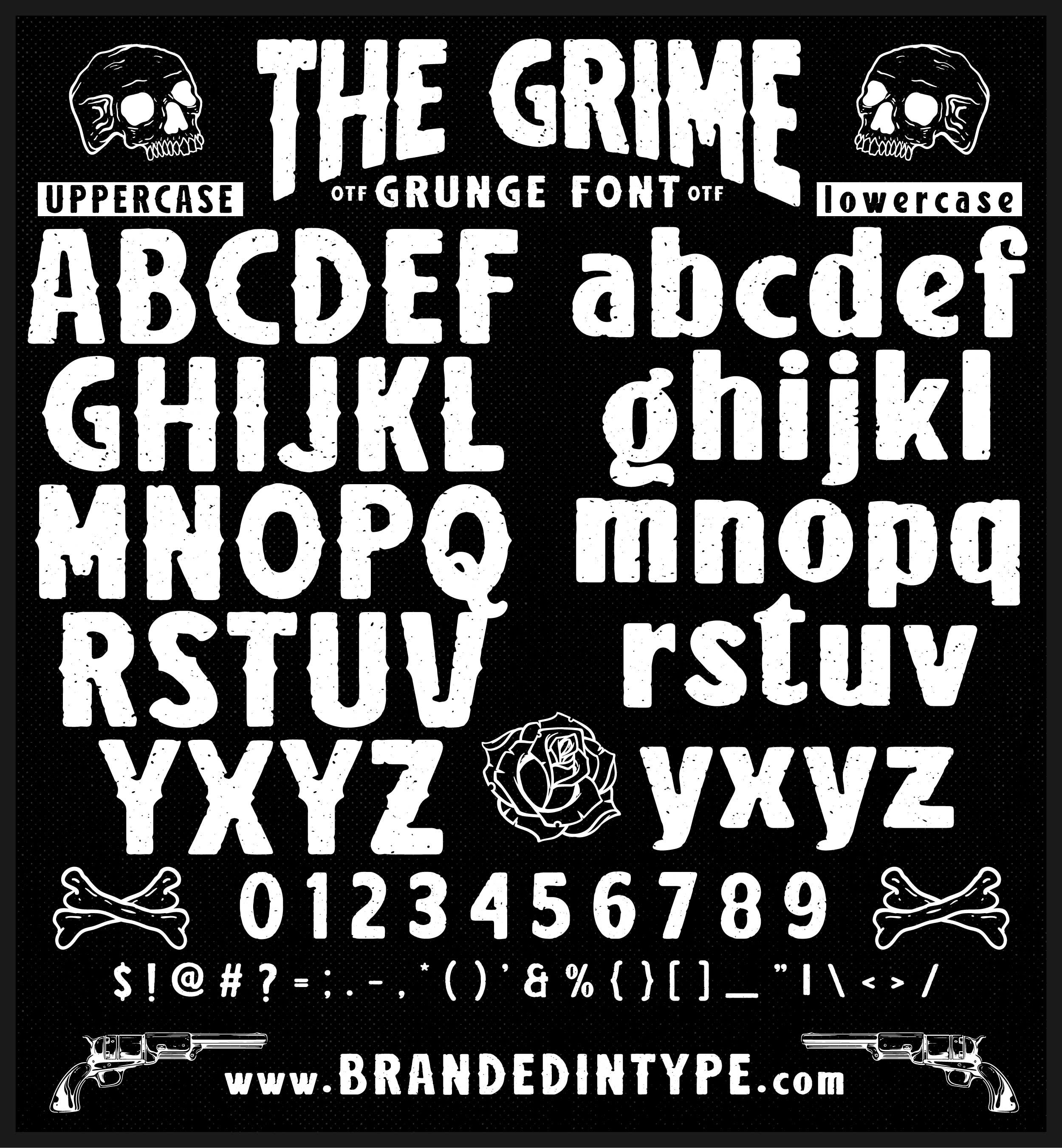
The perfect font for those “edgy” projects. Perfect for badge designs, tattoo shop/artist designs. Bold, edgy, powerful typeface set in both regular bold and Inline variations.
This free font is perfect for those grungy, hand drawn looking badge designs, monograms, t-shirt designs and whatever else your imagination allows.
Full upper case, lower case, numbers and symbols included. Tightly kerned for even, balanced typing.
This free font is perfect for those grungy, hand drawn looking badge designs, monograms, t-shirt designs and whatever else your imagination allows.
Full upper case, lower case, numbers and symbols included. Tightly kerned for even, balanced typing.
The perfect font for those “edgy” projects. Perfect for badge designs, tattoo shop/artist designs. Bold, edgy, powerful typeface set in both regular bold and Inline variations.